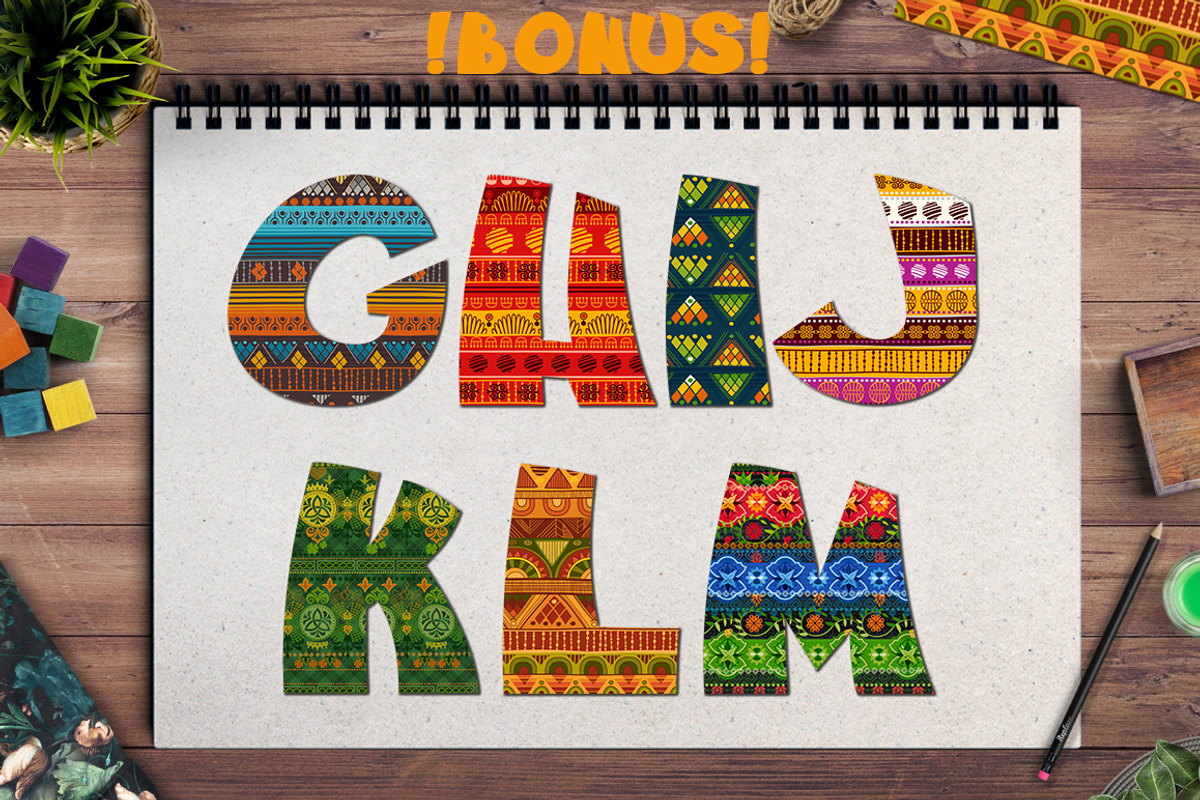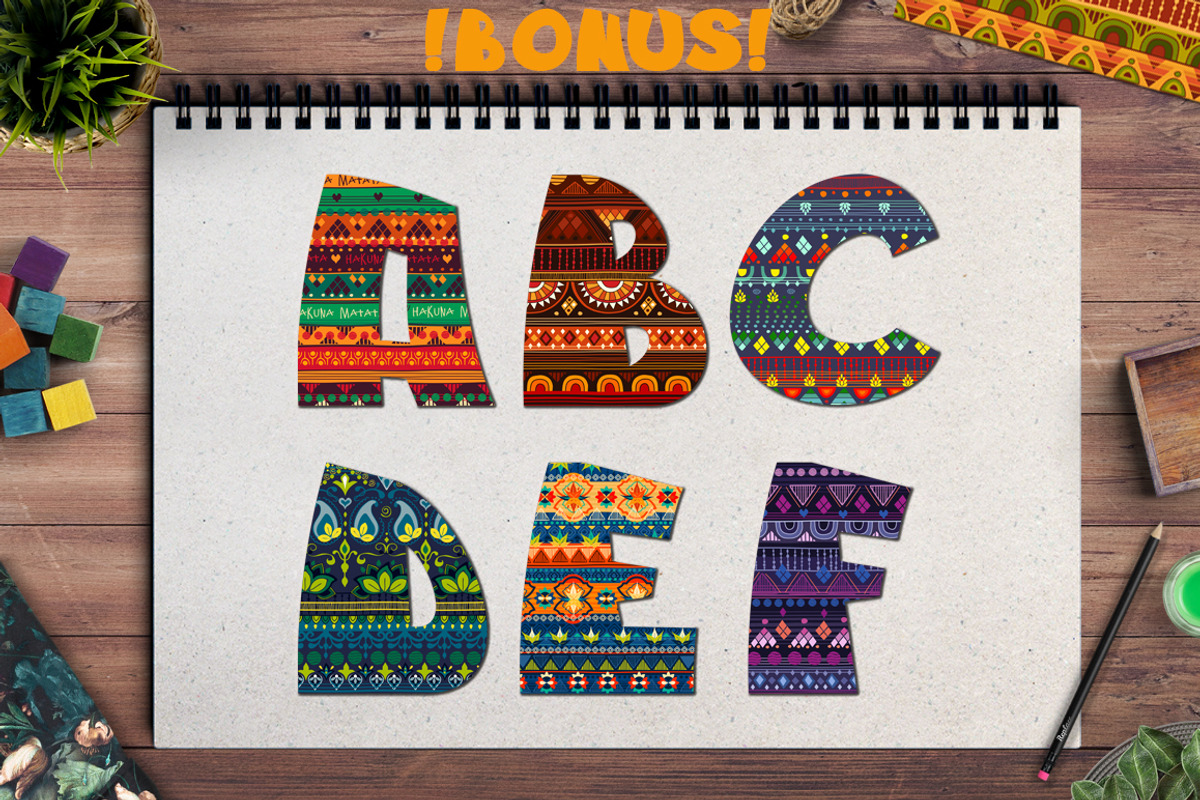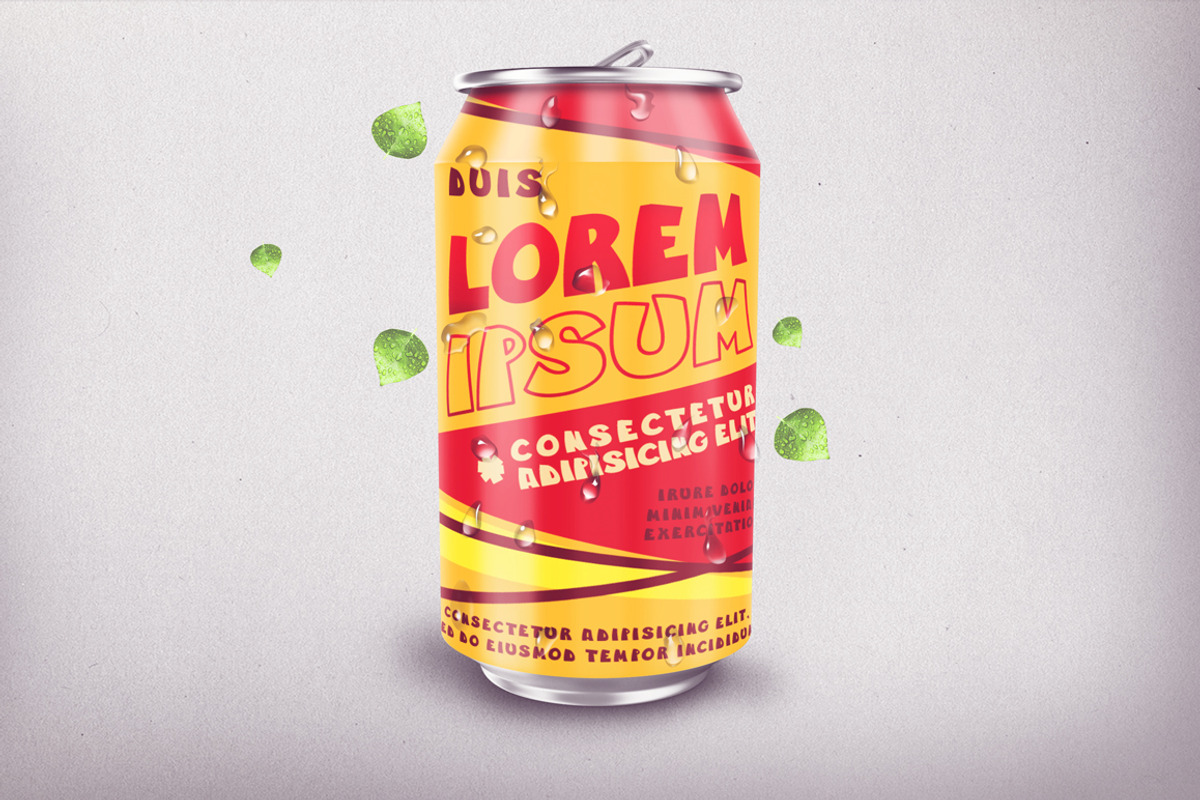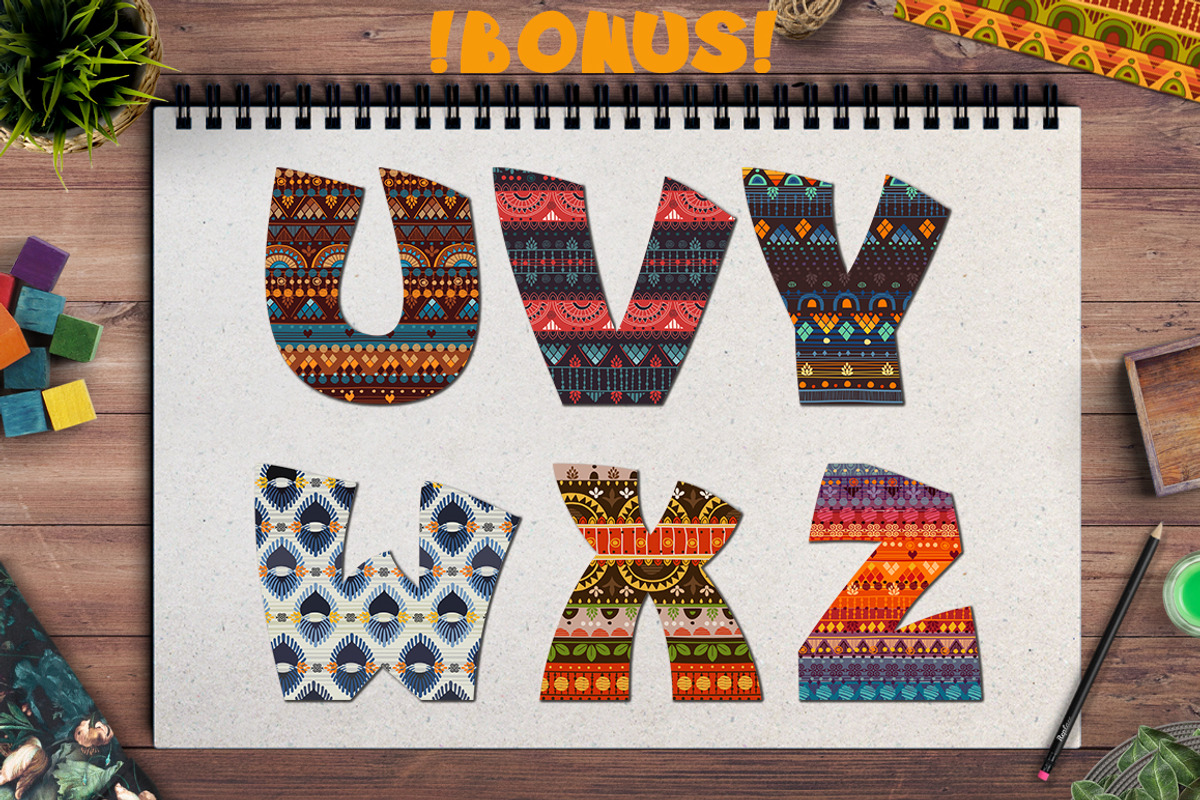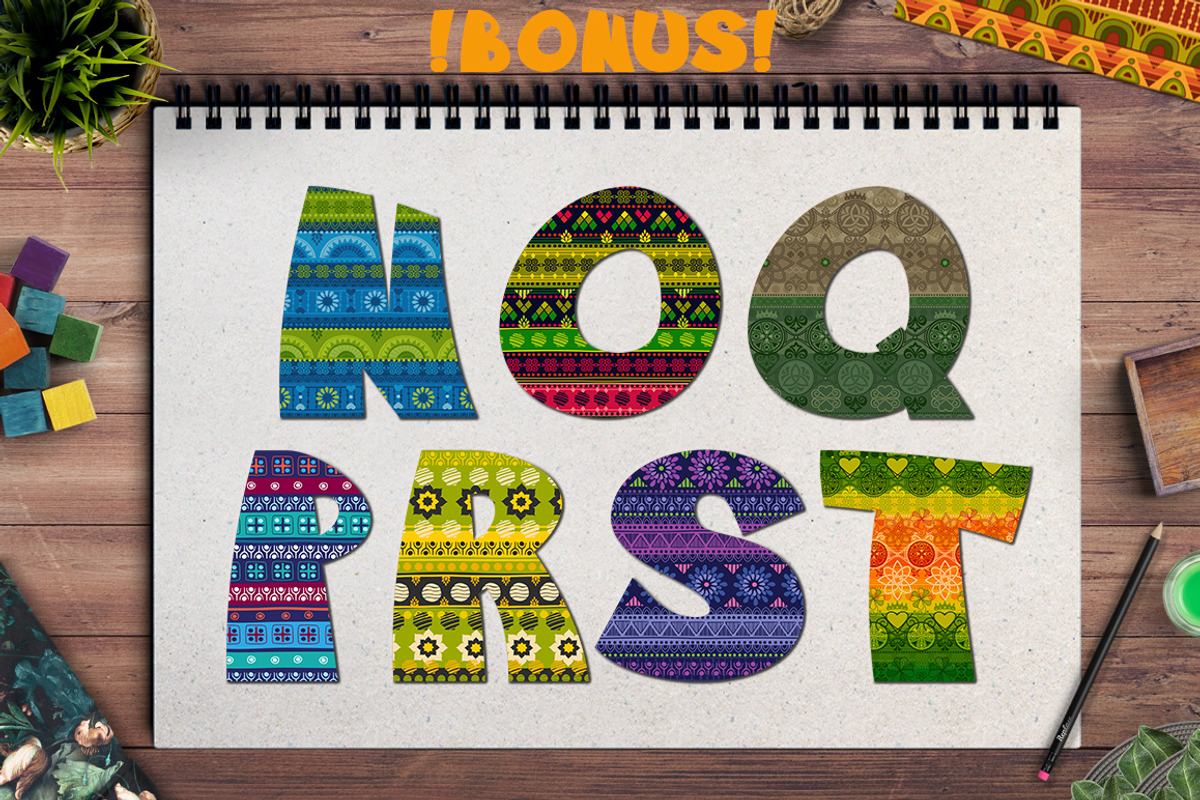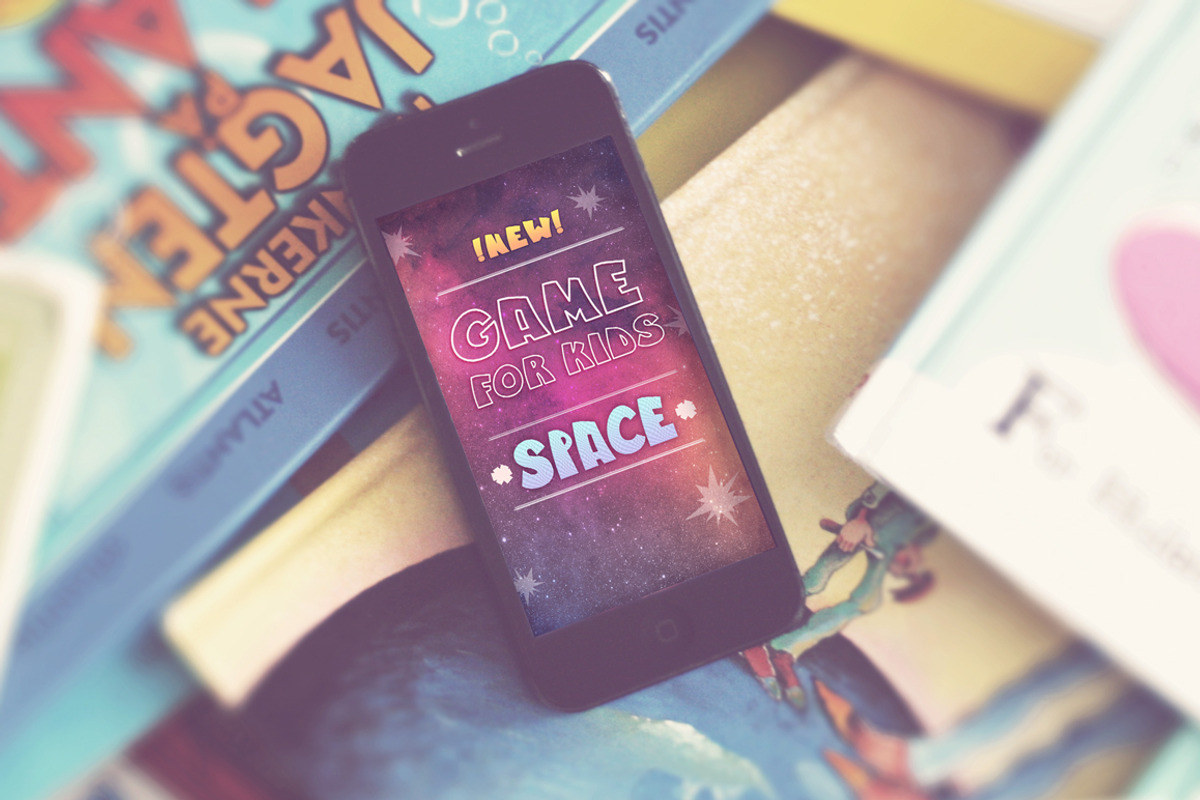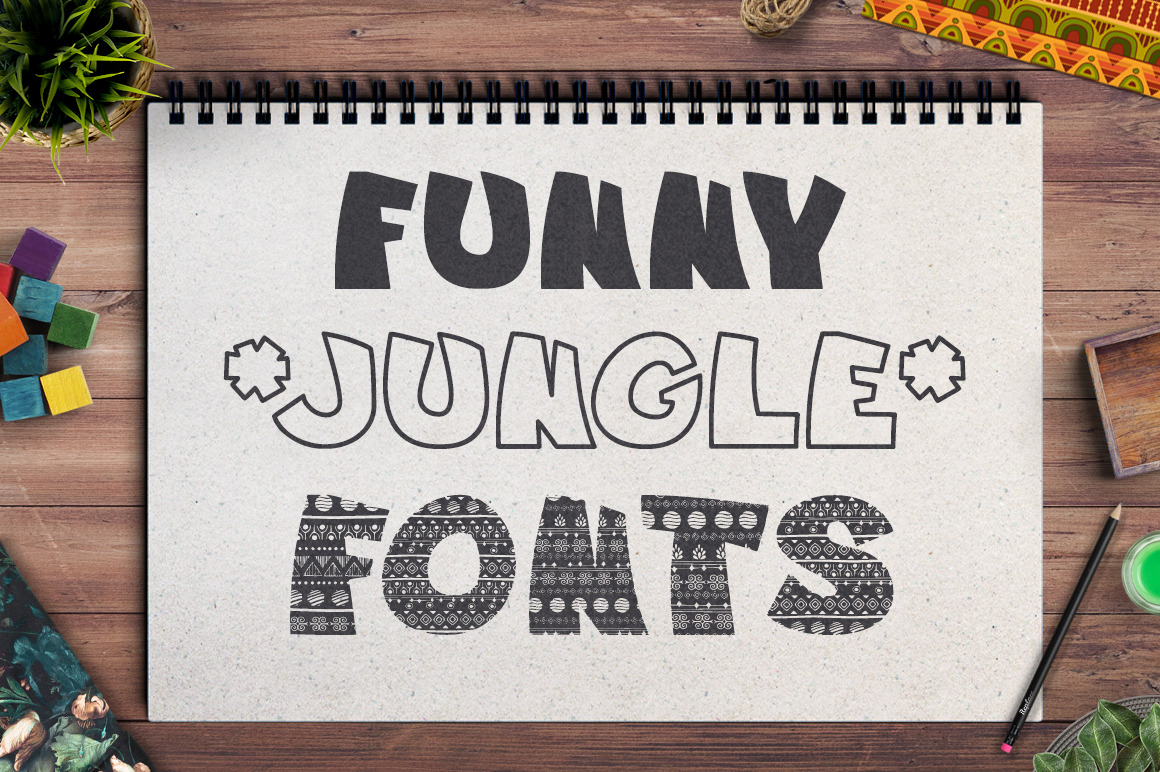
3 funny fonts JUNGLE
I developed three font for your design: "Jungle", "Jungle Line" and "Tribal Jungle". These funny fonts you can use for decoration t-shirts, packs, business cards, brochures, flyers, banners and many other items. I hope these fonts you will like and they will be useful to you!
I added a BONUS for you - the 26 letters decorated with tribal patterns in PNG, EPS and Ai.